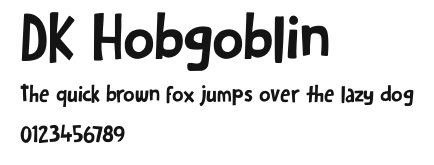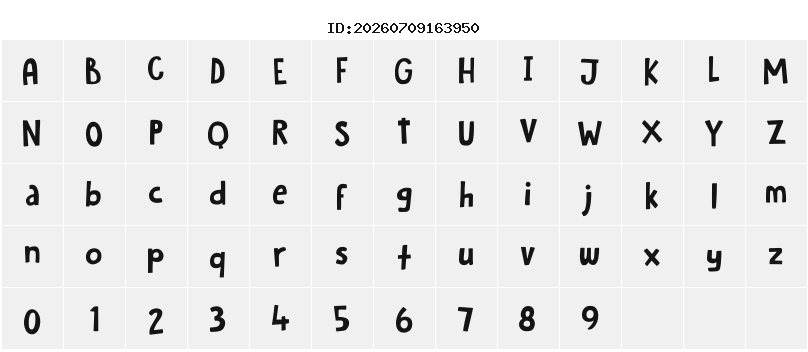
• Font Name: DK Hobgoblin
• Designer: David Kerkhoff
About DK Hobgoblin.otf
DK Hobgoblin.otf is a modern, elegant sans-serif font designed for ultimate readability and visual harmony. Perfect for branding, headlines, web design, and print materials.